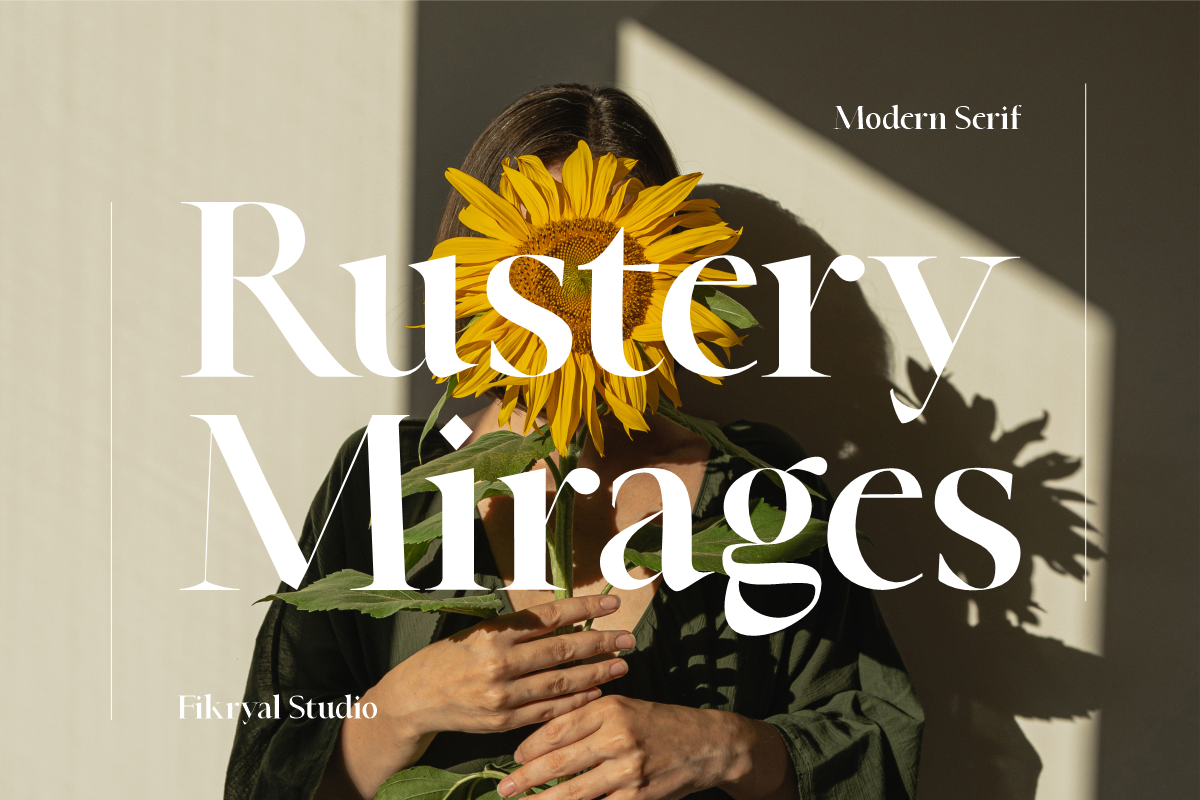
Rustery Mirage – Modern Serif Free Download
Rustery Mirage Font - Modern Serif Free Download
You must purchase this font for commercial use. However, you can download Rustery Mirage Font - Modern Serif Free Download for testing purposes. Rustery Mirage is a modern serif font that combines clean, contemporary lines with bold and sophisticated design. Perfect for high-end branding, logos, editorial layouts, websites, and more, this font adds an air of elegance and professionalism to any project.
With its sharp, geometric serifs and well-balanced structure, Rustery Mirage provides a timeless yet modern look that’s ideal for both creative and corporate projects. Whether you're creating a luxury brand identity, designing an editorial magazine, or developing a professional website, this font will bring a polished, refined feel to your typography.